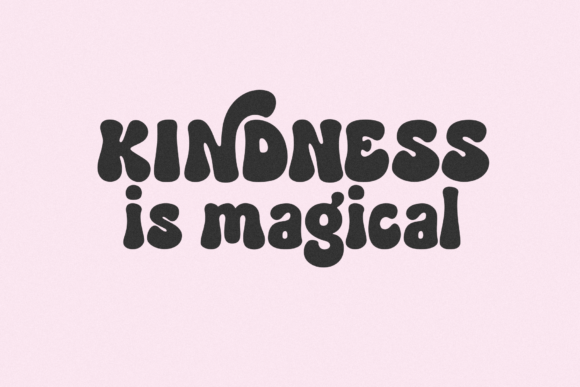
Honey Glaze Font
Honey Glaze is a bubbly fun retro font. This font is perfect for all of your retro logos, shirts, quotes, personalized names, ornaments, stickers and more! This font includes super cool swashes that is sure to make all of your design projects stand out!